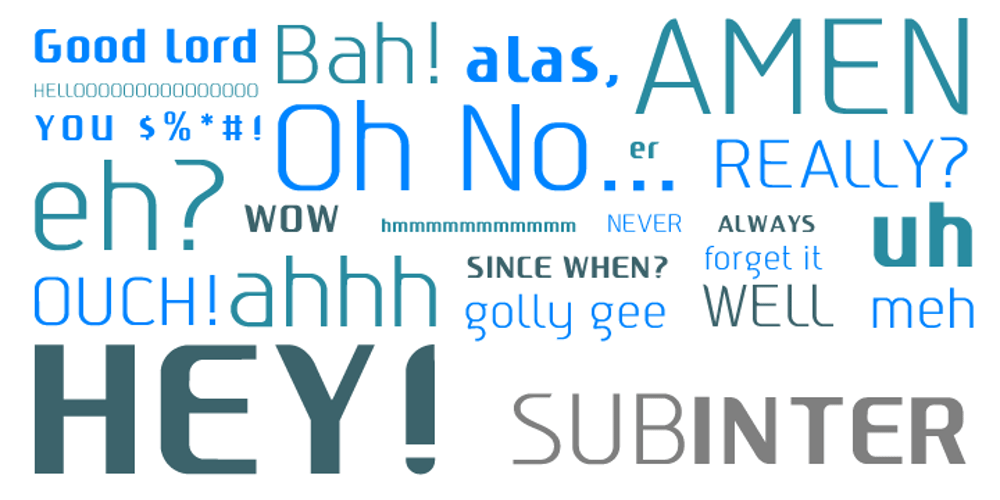
Subinter Font Family was designed by Valérie Desrochers, Sébastien Théraulaz and published by Subtitude. Subinter contains 2 styles and family package options. The first elements of the Subinter font were designed for a transportation company. Then we spent almost a year on refining and completing the entire font package. The final result is a unique sans-serif font with subtle curves.